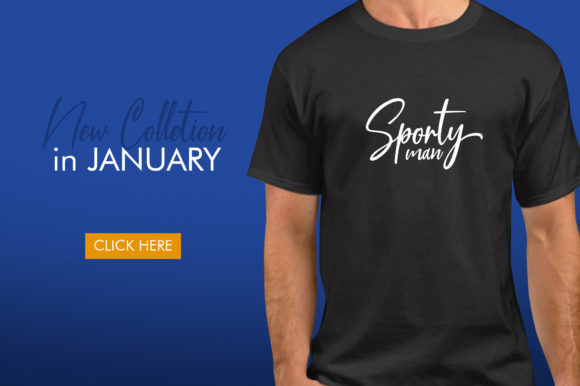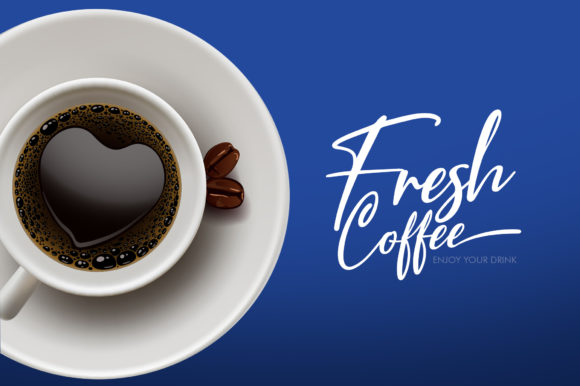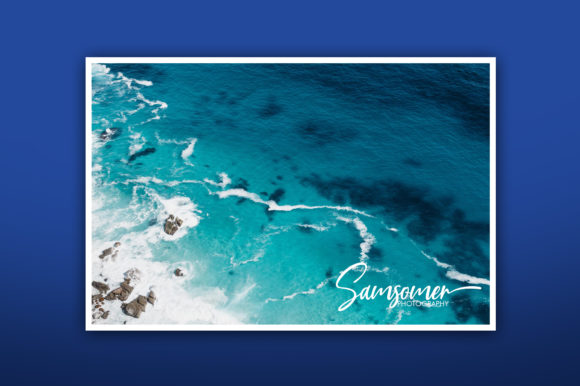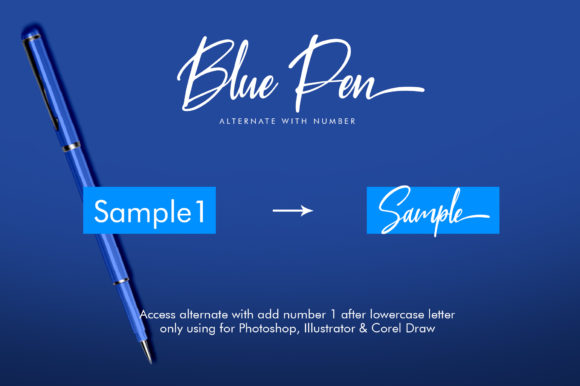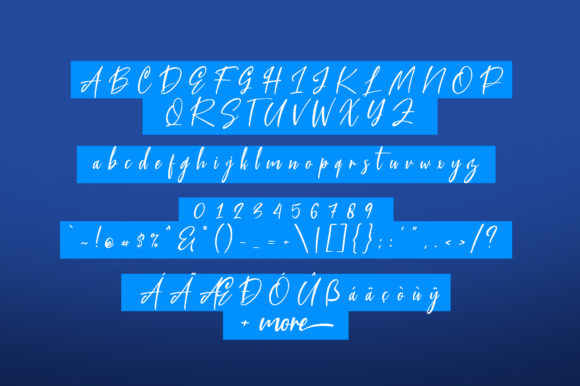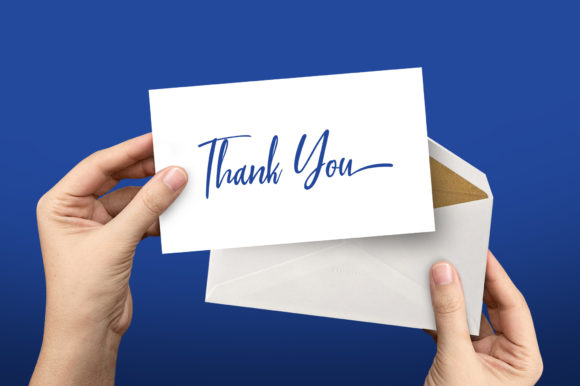
The Perfect Brushstroke for Your Next Design Project
Have you ever sat down with a blank sheet of paper, a pen in hand, and let your imagination run wild? For many designers, this is the moment when creativity flows and ideas start to take shape. It’s a feeling that’s hard to replicate with digital tools, but with the right font, you can get close. Introducing the Blue Pen Script Font, a fresh and unique script font that captures the essence of a handwritten note.
This versatile font is perfect for creating custom logos, posters, wedding invitations, and much more. Its fun and elegant feel makes it a valuable addition to any designer’s toolkit. With the Blue Pen Script Font, you’ll be able to add a personal touch to your designs and make them truly stand out.
Blue Pen Script Font Key Features
- Font Family: Blue Pen Script
- Unique Characteristics: Handwritten, cursive, and elegant script font with a vintage feel, ideal for creative projects, invitations, and personal correspondence
Designer Review: Blue Pen Script Font
As a designer, I’ve had the chance to work with a wide range of fonts, and I must say that Blue Pen Script is quite the charmer ✨. Its whimsical and playful feel makes it perfect for creative projects, like wedding invitations, children’s books, or even food labels. The font’s subtle imperfections and organic feel give it a sense of hand-drawn charm, making it stand out from more uniform digital fonts.
However, as much as I adore Blue Pen Script, there are some limitations to consider ⚠️. For one, the font can be quite messy at larger font sizes, with some letters becoming nearly illegible. Additionally, the font’s variability in letter spacing and size can make it challenging to maintain consistency across a design. This may require some extra attention to detail and tweaking to get it just right.
Overall, I’d say Blue Pen Script is a great addition to any designer’s toolkit ✨. While it may not be the most practical font for everyday use, its unique charm and personality make it perfect for those special projects that require a bit of whimsy and flair. Just be sure to use it wisely and with a keen eye for detail!
Pros:
- Unique, hand-drawn feel
- Perfect for creative projects
- Whimsical and playful
Cons:
- Can become messy at larger font sizes
- Requires extra attention to detail
- Can be challenging to maintain consistency
For the best results, pair the Blue Pen Script Font with a clean and minimalist design. Use it to add a touch of elegance to invitations, wedding stationery, or other formal documents. Experiment with different font sizes and colors to create a unique look.
The Blue Pen Script Font is perfect for:
- Formal event invitations
- Editorials and publications
Alternatives to Blue Pen Script Font
Great Vibes is a modern calligraphy font that is highly customizable. It is ideal for use in logos, invitations, and other creative projects where a personal touch is required. Great Vibes is more elegant and refined compared to Blue Pen Script Font, making it suitable for high-end designs.
Carolyna Pro is a beautiful script font with a high-end feel. It is perfect for use in branding, advertising, and editorial design. Compared to Blue Pen Script Font, Carolyna Pro has a more sophisticated and luxurious look, making it suitable for premium products and services.
Alex Brush is a elegant script font with a touch of whimsy. It is ideal for use in creative projects, such as book titles, magazine covers, and website headers. Alex Brush is more delicate and intricate compared to Blue Pen Script Font, making it suitable for designs that require a touch of sophistication and elegance.
What is the recommended font size and line height for the Blue Pen Script Font?
The recommended font size for the Blue Pen Script Font is between 18-24 points, depending on the design project and the desired level of legibility. The recommended line height is 1.2-1.5 times the font size. This will ensure that the text is easy to read and the font is displayed at its best.